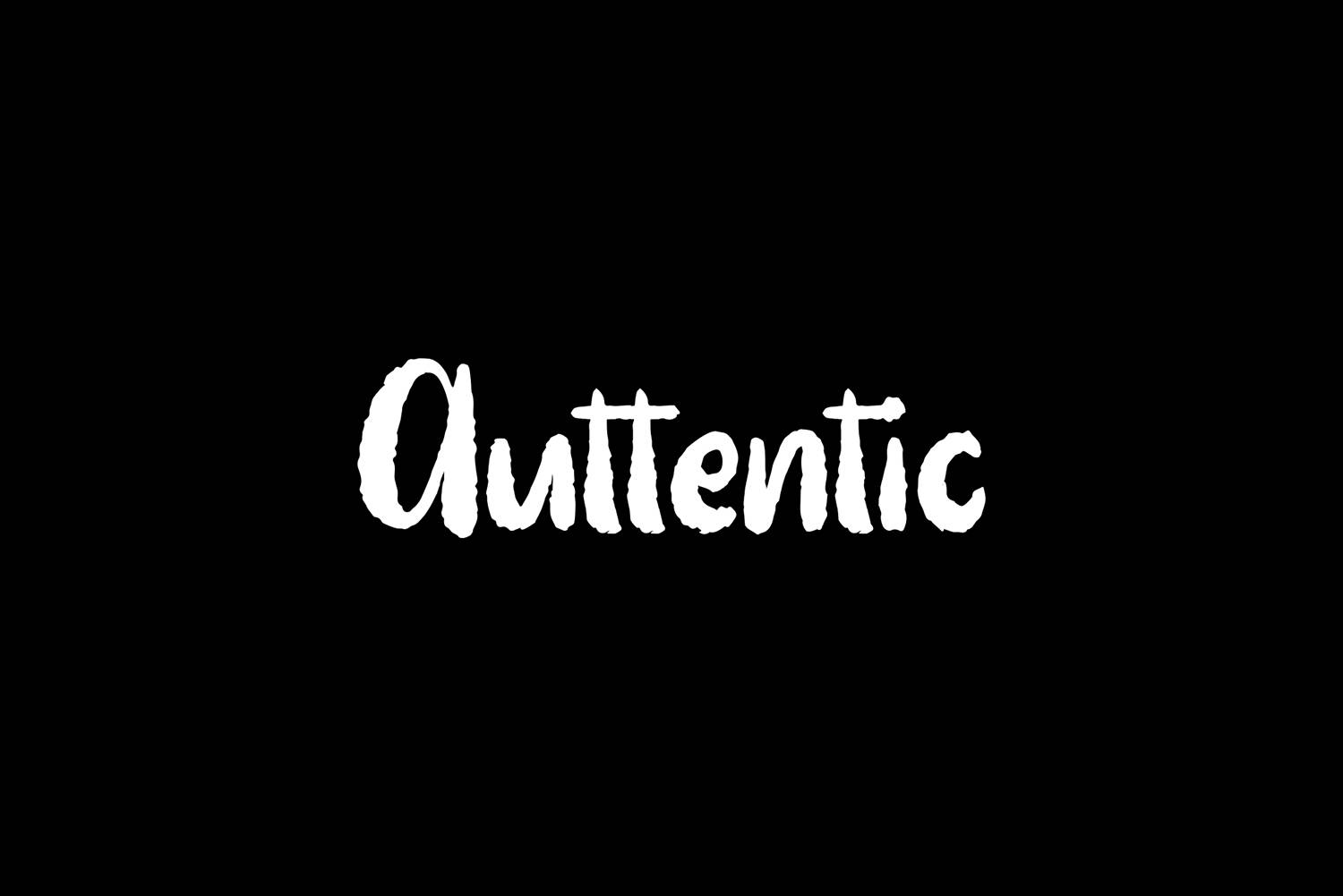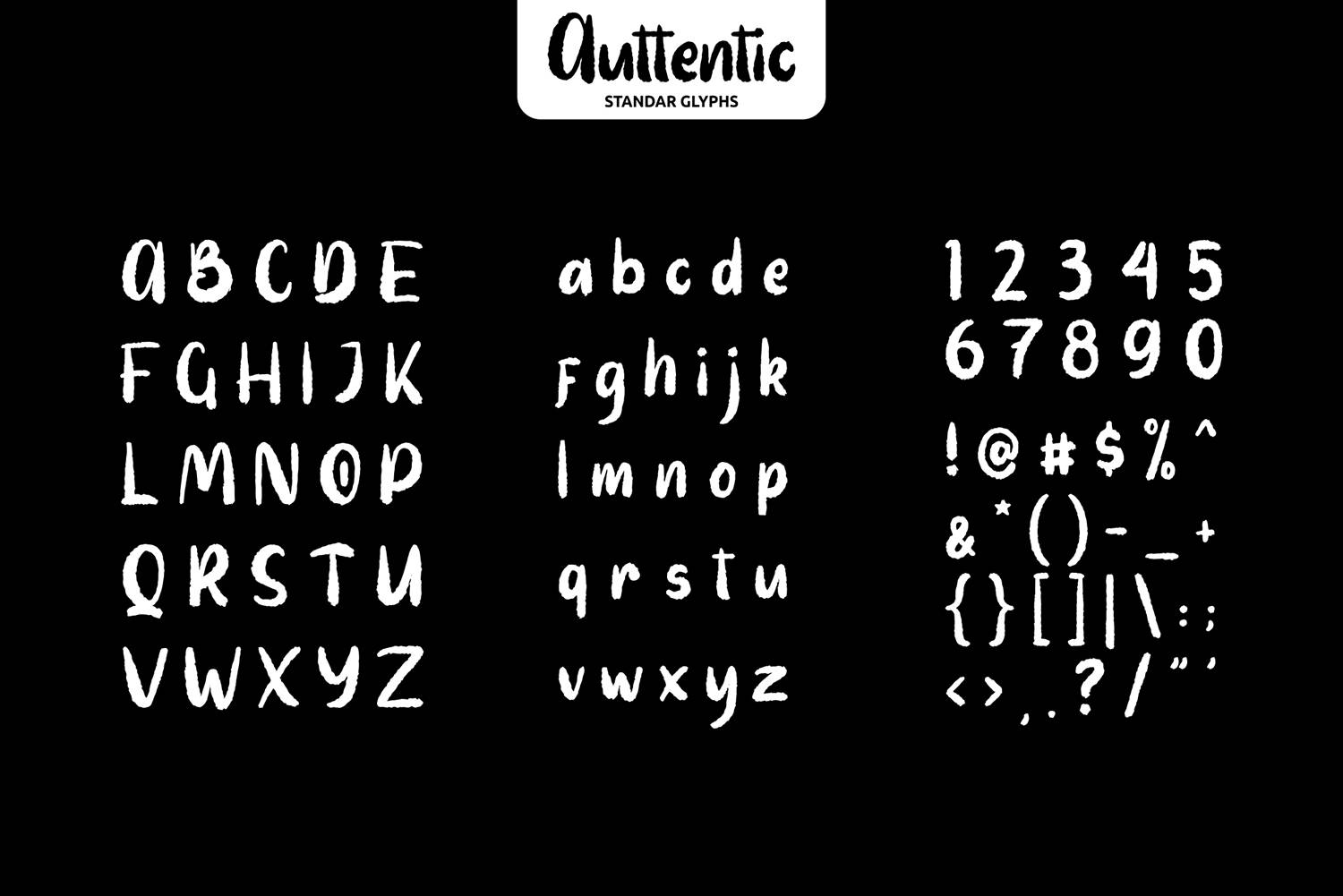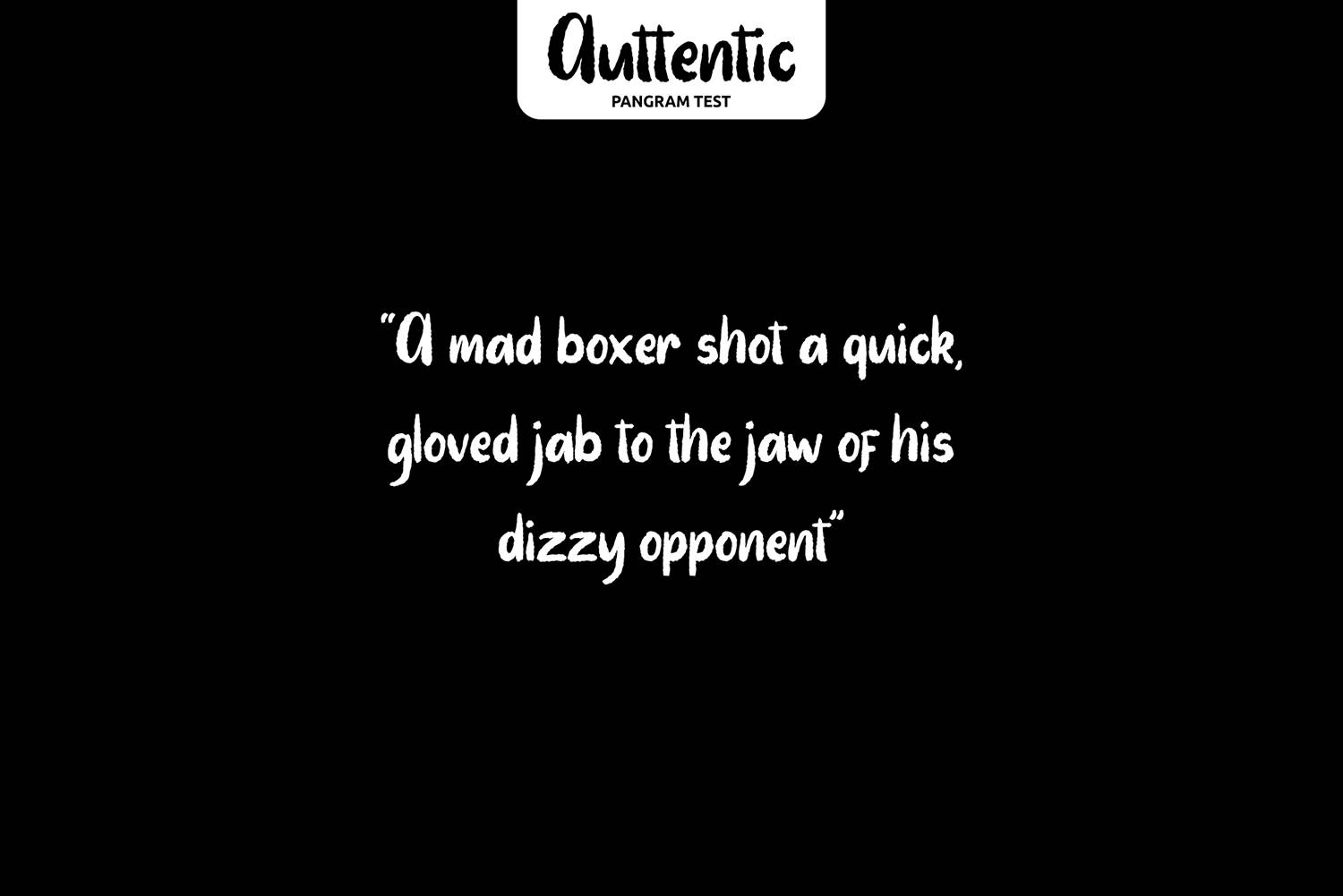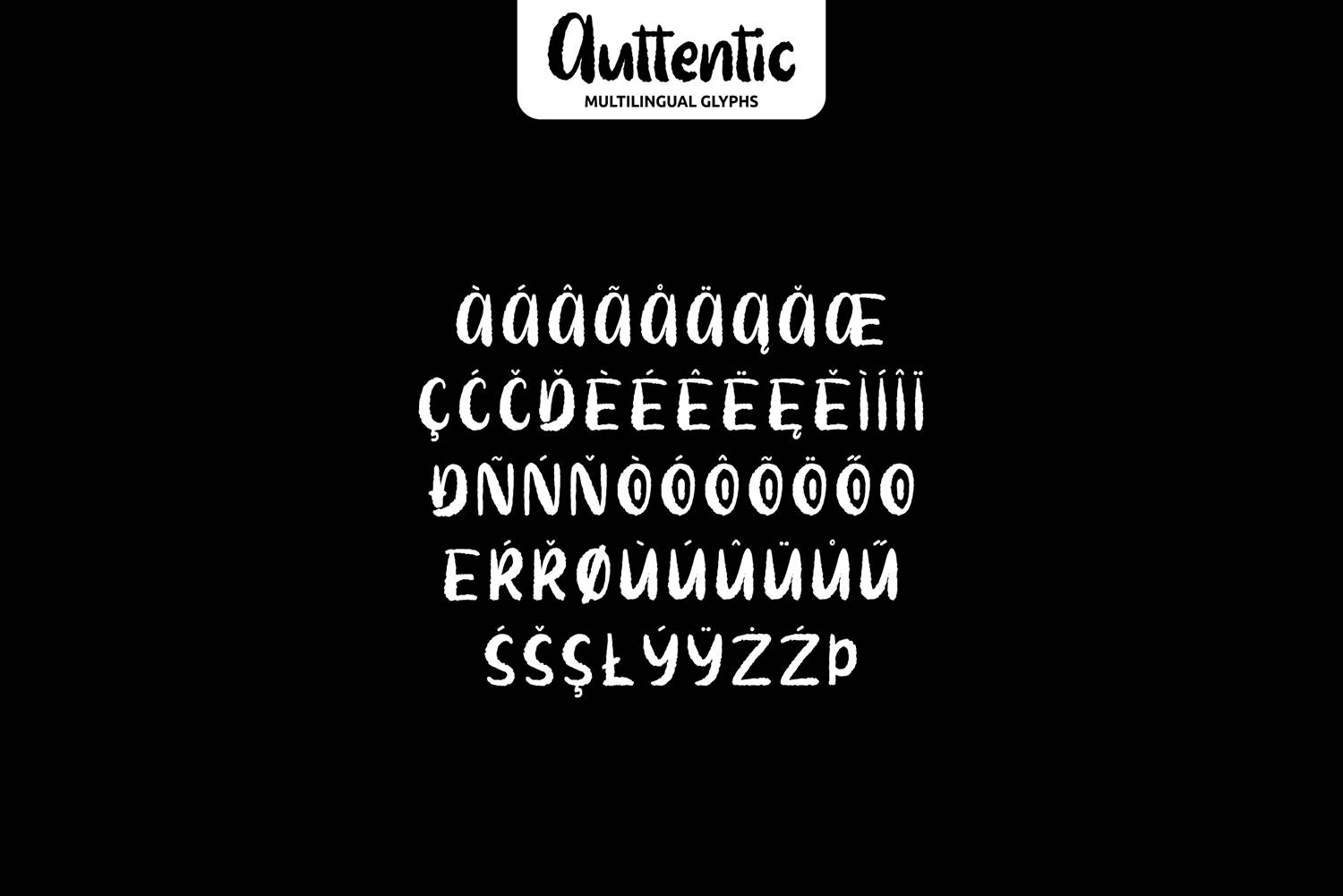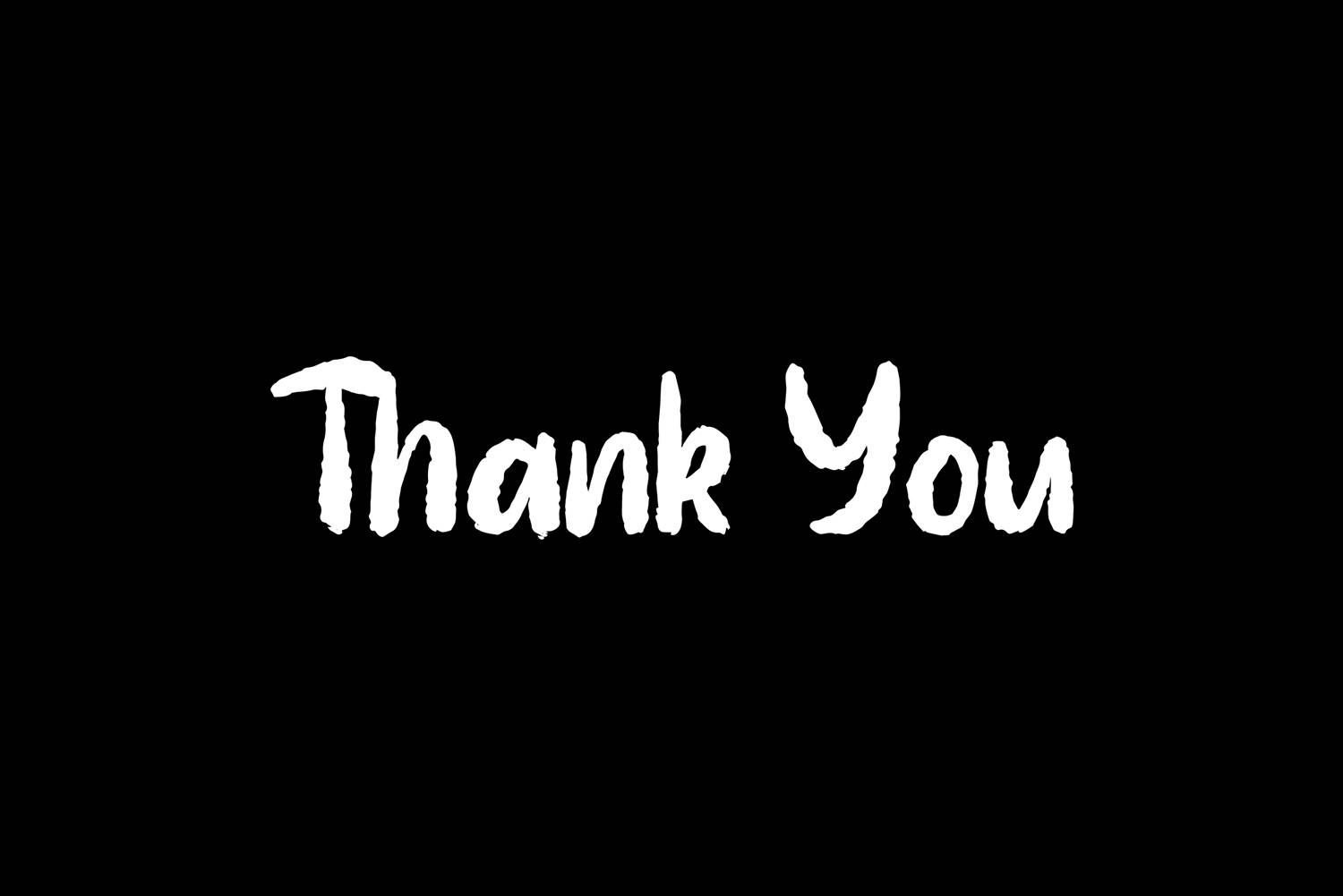
Auttentic is a bold, hand-drawn sans serif font with a textured, organic feel that mimics brush strokes. Its irregular shapes and casual style give it a playful, artistic personality, making it perfect for creative projects, informal branding, and expressive headlines that seek a genuine, approachable vibe. This font works well where a personal, handcrafted touch is desired, such as in posters, social media graphics, and packaging for artisanal or lifestyle products.
Auttentic Font
About Auttentic Font
| Font family | Auttentic Font |
| Release date | 2019-02-01 |
| Designer | Good Java Studio |